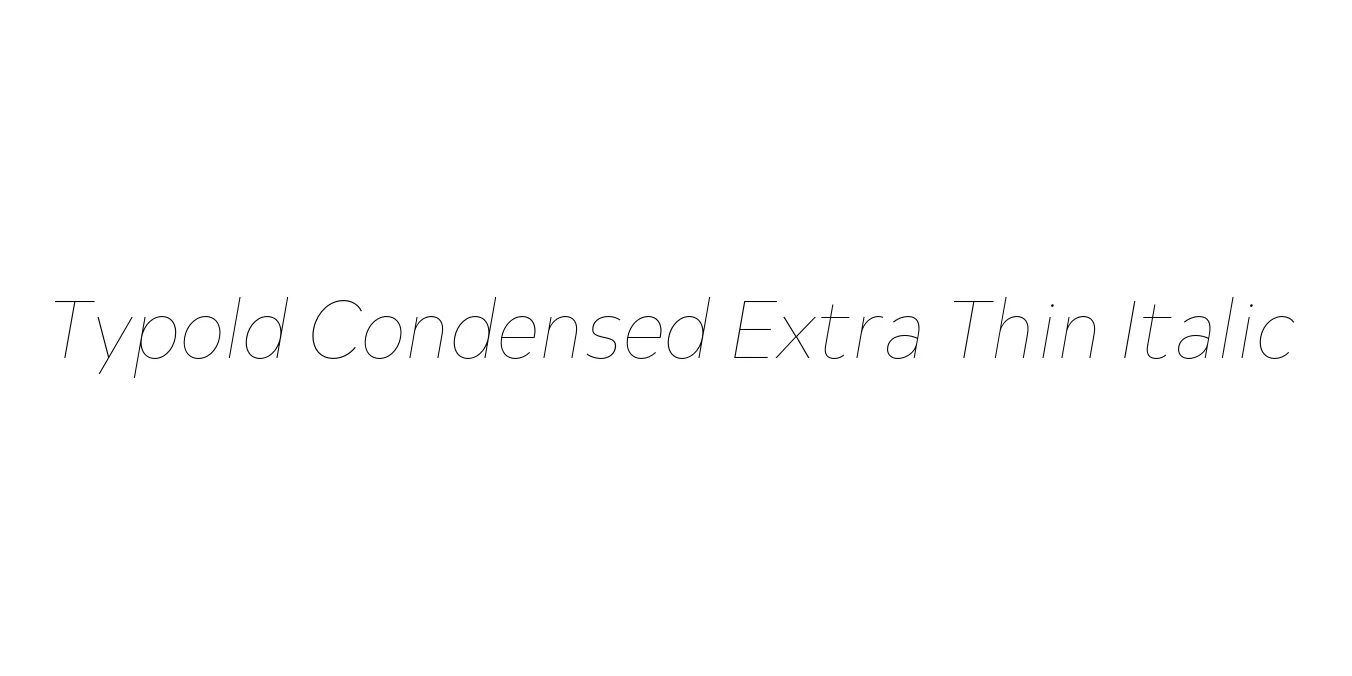
Typold Condensed Extra Thin Italic
Typold Condensed Extra Thin Italic is a refined geometric sans-serif typeface designed by Jonathan Hill for the UK-based foundry, The Northern Block. As part of the expansive Typold family, this specific weight pushes the boundaries of structural elegance, offering a highly compressed profile that maximizes space efficiency while maintaining a sharp, modern aesthetic.
Built with mathematical precision and a focus on contemporary form, the Extra Thin Italic variant is characterized by its hairline strokes and dynamic slant. This combination creates a sense of speed and sophistication, making it an exceptional choice for high-fashion editorial layouts, architectural branding, and minimalist digital interfaces that require a touch of luxury and technical excellence.
Typold Condensed Extra Thin Italic Best Uses
Excellent for high-end magazine mastheads, subheadings, and sophisticated pull quotes.
Perfect for minimalist logos and luxury brand identities that require a sleek, narrow profile.
Ideal for elegant hero headers and stylistic display text in modern web layouts.